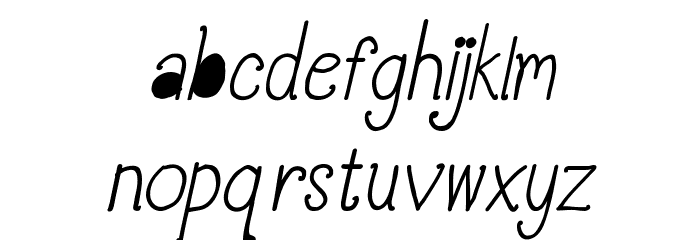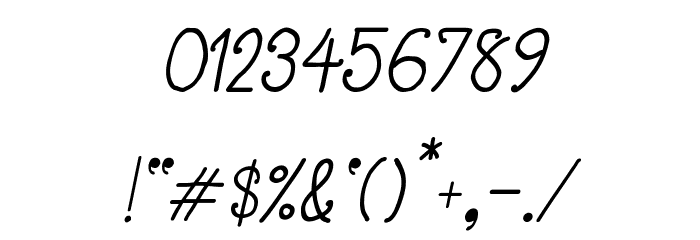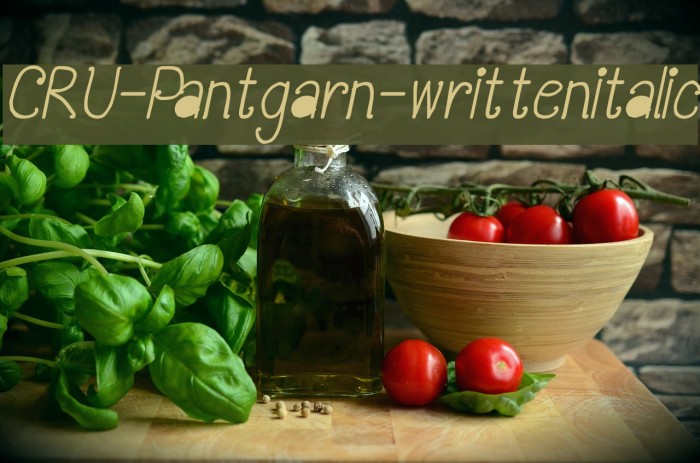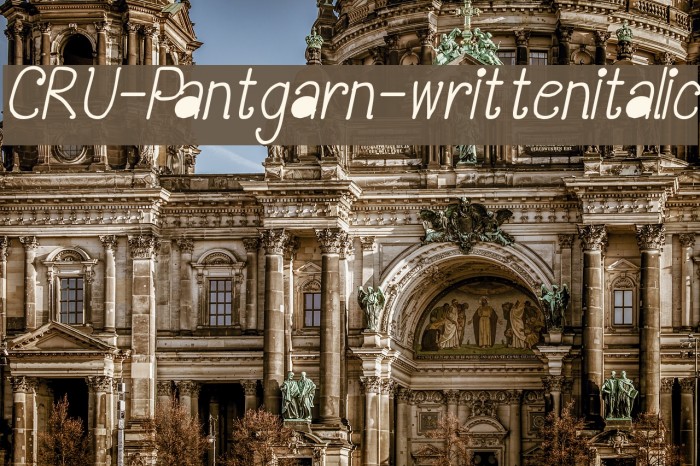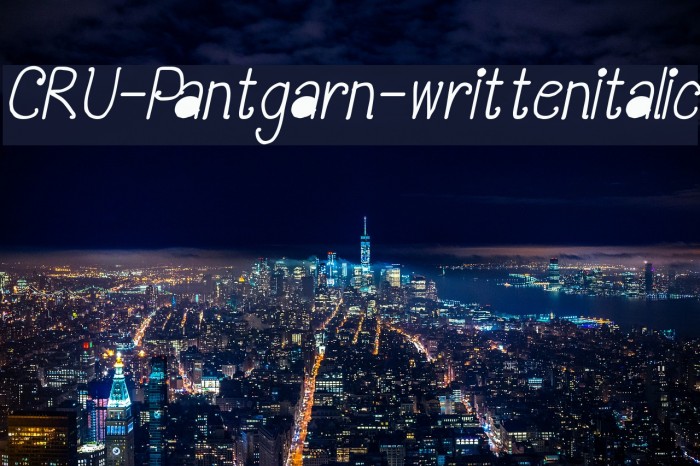
CRU-Pantgarn-writtenitalic Font
This font features a handwritten, cursive style with a playful and casual appearance. The letters are slightly slanted, giving it an italicized look, while maintaining a consistent flow throughout the alphabet. Uppercase letters are elegantly elongated, while lowercase letters exhibit a charming looped design, particularly noticeable in characters like 'g' and 'y'. The numerals are clear and easy to read, matching the overall style of the font. Special characters are well-integrated, maintaining the whimsical yet legible quality of the font. The overall impression is one of friendliness and approachability, making it suitable for informal and creative projects.
A playful, handwritten cursive font with an italicized style.
- Proposed Projects: Ideal for greeting cards, invitations, personal branding, and creative projects that require a friendly and informal touch.
- Category: Handwritten
- Overall Style: Casual
- Use Case: Headlines, Logos, Invitations